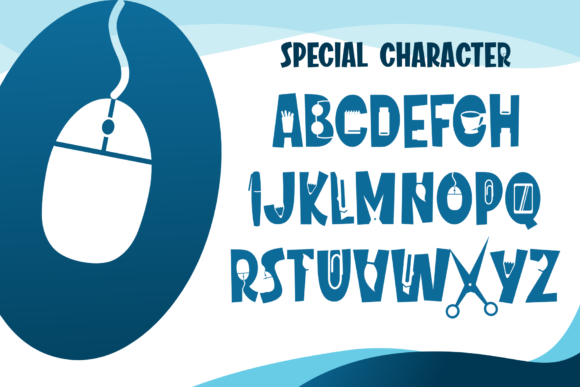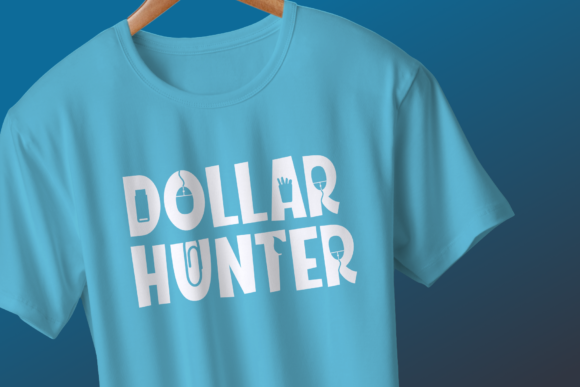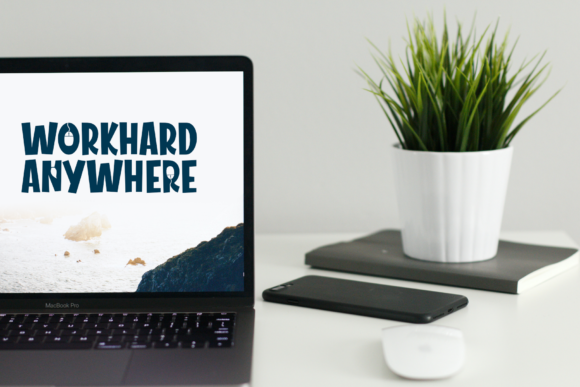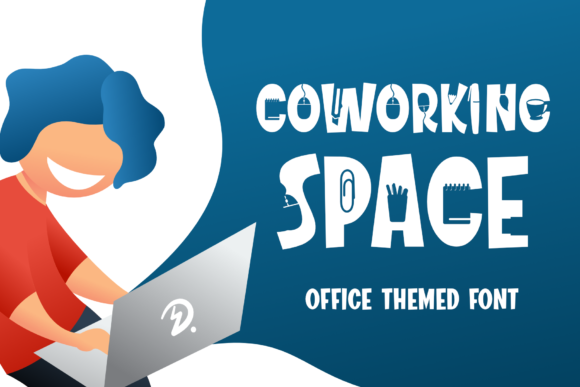
Introduction to Coworking Space Font
Coworking Space is a unique and incredibly interesting display font.
Its friendly feel makes this font incredibly versatile, fitting a wide range of contexts Add it to your creative ideas and notice how it makes them come alive.
Key Features of Coworking Space Font